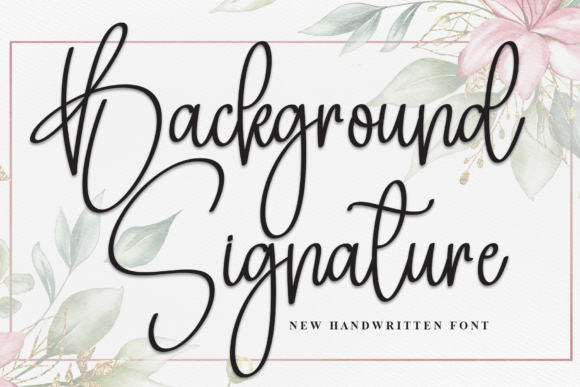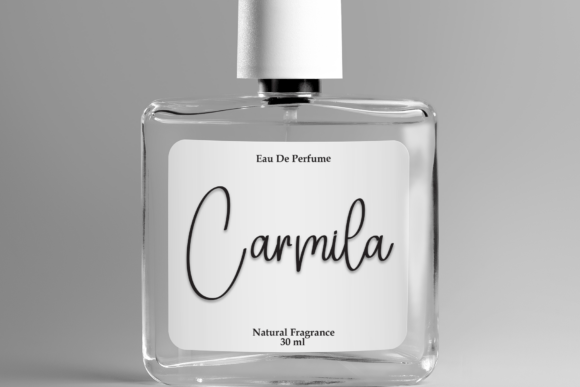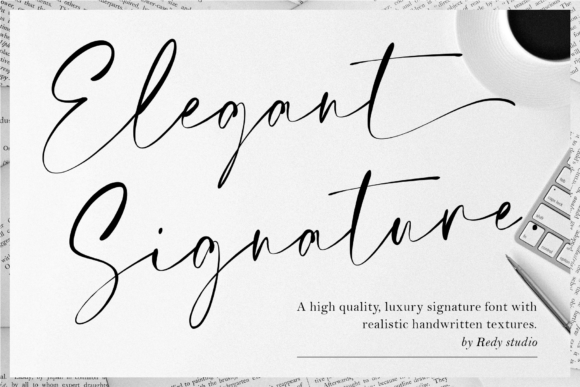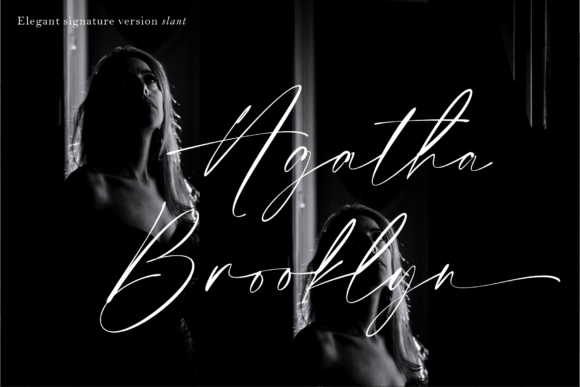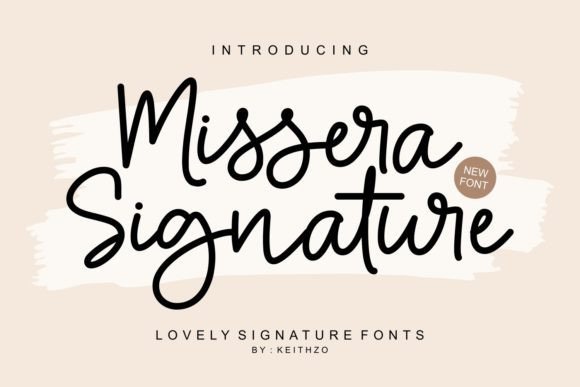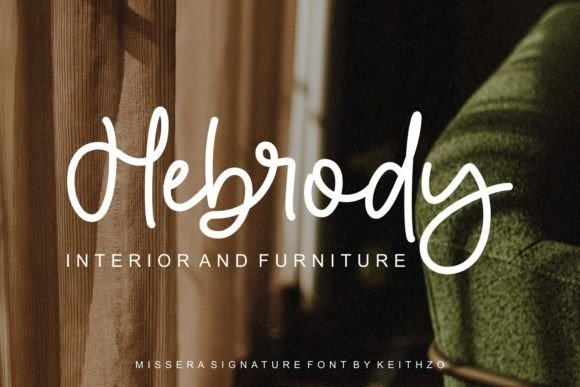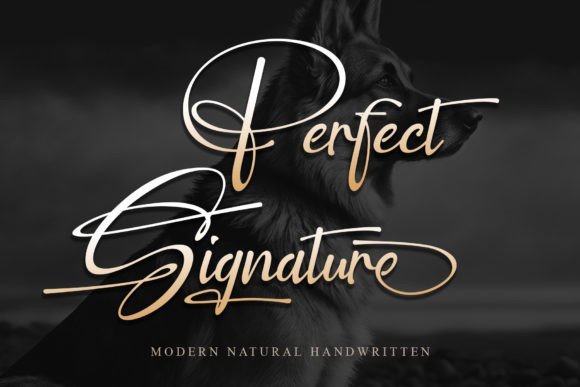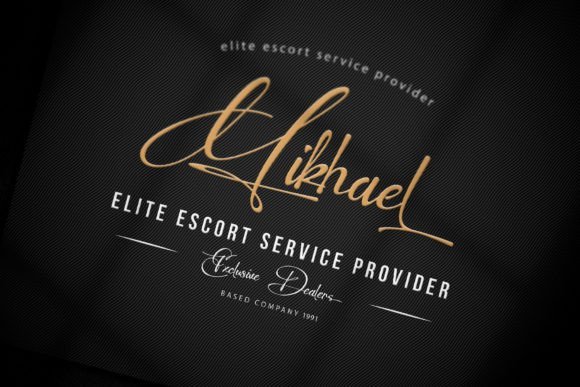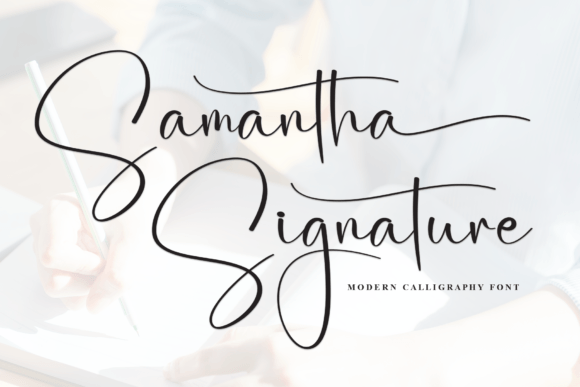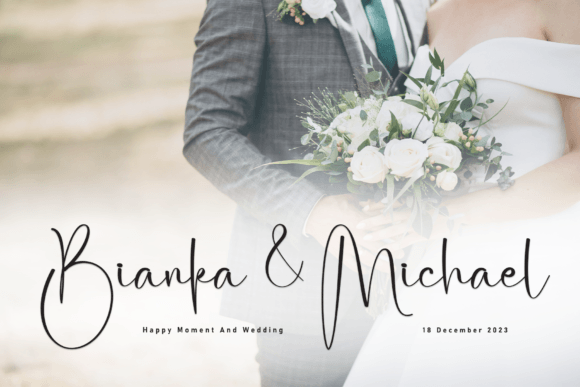
26 Elite Signature Script Fonts for Luxurious Modern Typography
Finding the perfect signature script font can completely redefine your brand’s identity. In this curated list, I explore 26 stunning options that bring an authentic handwritten feel to any project, from luxury logos to elegant wedding invites.
1. Perfect Signature: Beautifully Crafted Lines For Premium And Luxury Designs
I absolutely love how Perfect Signature mirrors the natural flow of a real pen on paper. This signature script font stands out because it doesn’t feel mechanical; the strokes have a rhythmic, sweeping motion that feels both professional and deeply personal. It’s a great pick when you want to add a sense of luxury and authenticity to a project without it looking overly formal or stiff.
I suggest using this for luxury branding, wedding invitations, upscale logos, and personalized social media graphics. The main advantage here is the impeccable balance between its fluid letterforms and legibility. It captures that elusive “hand-signed” essence perfectly, making it an ideal choice for any creative endeavor that needs a refined, high-end finishing touch.
2. Samantha Signature: The Perfect Choice For Your Romantic Wedding Stationery
Looking for a way to add a gentle, human touch to your digital work? Samantha Signature is a truly beautiful choice that captures the delicate flow of real ink on paper. I appreciate how its feminine curves and airy strokes create a sense of effortless grace. It is a fantastic signature script font for luxury wedding branding because it feels deeply personal without losing its professional edge.
I highly recommend using this style for high-end event stationery, chic greeting cards, boutique logos, and lifestyle blog headers. What really stands out to me is how the natural spacing makes every word look like it was hand-penned by a calligrapher just for you. This font brings a timeless charm that works perfectly for anyone wanting to mix modern flair with classic elegance.
3. Background Signature: Perfect Signature Script Font For Personal Branding Success
I really love how Background Signature manages to look both carefree and incredibly intentional. It has this organic, rhythmic flow that immediately makes a design feel more human and approachable. If you are searching for a signature script font for personal branding that doesn’t feel like a standard computer typeface, this is a top-tier choice because it mimics the natural pressure and speed of a real hand.
I recommend using this beautiful script for elegant invitations, modern logos, minimalist social media posts and custom stationery. Its primary strength lies in its versatility; it is simple enough to stay readable while still being stylish enough to carry a whole brand identity. It adds that perfect “final touch” to any project that needs a bit of personality without trying too hard.
4. Artistic Signature: Crafting A Luxurious Identity With Elegant Flowing Strokes
Every designer needs a tool that feels like a stroke of genius, and Artistic Signature is exactly that for me. This delicate monoline script moves across the canvas with a luxurious, high-end energy that is hard to ignore. I love how the varying stroke widths create a rhythmic, hand-drawn look, making any text feel like a piece of custom art rather than just another digital typeface.
You can beautifully apply this personalized lettering style to premium branding, wedding invitations, editorial layouts and exclusive packaging. A standout feature is the way the elegant curves connect, providing a seamless flow that mimics a professional calligrapher’s hand. It is my go-to choice for adding a layer of sophistication and class to any project that demands a unique, expensive-looking finish.
5. Prontera Signature: Why This Font Is Essential For Your Photography Business
I am absolutely captivated by how Prontera Signature feels like a swift, spontaneous stroke of a fountain pen. It has a rhythmic energy where the characters seem to dance along the baseline, creating a look that is both modern and incredibly sophisticated. I believe this signature script font for photographers is a top-tier choice because it adds a luxury spark to any visual work without feeling over-engineered or static.
I suggest applying this graceful typeface to watermarking photos, high-end branding, wedding stationery and elegant logos. It really shines in its simplicity; the delicate lines ensure that your text remains legible while still carrying that exclusive, hand-signed vibe. It’s the perfect way to breathe life and personality into a project, giving it a polished finishing touch that feels uniquely yours.
6. Bridger Signature: The Perfect Choice For Sophisticated Social Media Branding
Experience a touch of modern class with the Bridger Signature script font, a typeface that feels incredibly fresh and relaxed. I love how this font mimics natural handwriting so closely, making it an ideal luxury branding script for projects that need an authentic, human feel. It has a super-chilled vibe that keeps your designs looking stylish without appearing like they are trying too hard.
You can use this versatile font for branding, photography, social media, product design, wedding invitations, titles of articles, and book covers. A significant benefit is that it comes PUA encoded, meaning I can use all those beautiful glyphs and swashes without any technical headaches. It’s a perfect way to give your work a fashionable, high-end finish that looks completely organic.
7. Margita Signature: A Beautiful Hand Drawn Script For Modern Logos
I am truly impressed by how Margita Signature manages to look like genuine penmanship rather than a digital file. It relies on beautiful manual handwriting as its foundation, using a clever mix of thick and thin strokes to create that organic feel we all crave. When I see the stylistic alternates and ligatures in action, it really sells the illusion that someone just signed the page with a steady, graceful hand.
This versatile signature script font is a dream for logos, invitations, labels, magazines, books, greeting cards, wedding cards, packaging, fashion, make up, stationery, novels, and advertising. The beauty of it lies in how naturally the letters connect, making it feel alive and personal. It is the perfect choice for anyone wanting to inject a bit of human soul and high-end elegance into their formal or creative projects.
8. Missera Signature: Add Charming Ligatures And Glyphs To Your Modern Projects
Brightening up your design work becomes effortless with Missera Signature, a charming choice that feels both playful and harmonious. I love how its rounded, monolinear strokes give off a friendly vibe while maintaining a sense of professional balance. It is a fantastic signature script font for elegant branding because it offers a clean, handwritten look that doesn’t feel cluttered or overly traditional.
I find this style works beautifully for interior design logos, furniture catalogs, creative social media posts and modern stationery. One standout feature is the PUA encoding, which lets me play around with various ligatures and glyphs to create a truly custom feel. It’s the kind of font that adds a warm, personal touch to your projects, ensuring the final result feels authentic and thoughtfully put together.
9. Elegant Signature: Why This Distinct Script Is Perfect For Chic Branding
I am always on the lookout for a stylish autograph typeface that feels genuinely high-end, and Elegant Signature really hits the mark. It has a relaxed and stylish flow that makes any text look like it was penned by a professional calligrapher. What makes it stand out is how it manages to be incredibly distinct while remaining clean and readable, instantly elevating the mood of my creative projects.
You can use this beautiful typeface for luxury branding, wedding invitations, chic logos, and social media quotes. Since it is PUA encoded, I can use all the extra glyphs and swashes without any technical struggle. It is a fantastic tool for adding a human, organic touch to your designs, giving them a polished finish that feels both personal and expensive.
10. Jonathan Signature: Beautiful Flowing Lines For Luxury Wedding Invitations
Combining sleek aesthetics with a contemporary twist, Jonathan Signature stands out as a truly refined choice for modern design. I love how it balances fluid, cursive strokes with an elegant structure that feels both expensive and approachable. It is a fantastic stylish signature script font because the smooth, flowing lines mimic real handwriting without sacrificing the professional clarity needed for high-end projects.
I recommend using this versatile typeface for sophisticated logos, wedding invitations, premium branding materials and creative social media headers. A standout feature is its ability to transition seamlessly between formal and casual contexts. Whether I am working on a minimalist business card or a heartfelt greeting, this font brings a sense of authenticity and personal flair that makes every word feel unique.
11. Bastony Signature: Create Dramatic Artistic Flourishes For Your Brand
I am completely blown away by the raw energy of Bastony Signature. It isn’t just another tidy script; it is a powerful ink-brush masterpiece that feels alive on the screen. The way it captures the dry texture and dynamic movement of a real brush stroke gives any design a dramatic, hand-painted soul. When you need a signature script font that looks like it was signed in a moment of pure inspiration, this is the one.
You can use this expressive typeface for bespoke branding, high-end packaging, magazine titles, and elegant wedding stationery. With over 48 ligatures and swashes, it offers an incredible level of variety for creating a truly unique, artistic flourish. It effectively conveys high-quality craftsmanship and professionalism, making it a stellar choice for projects that demand a grand and unforgettable statement.
12. Le Mores Signature: Beautiful Handwritten Script Paired With A Classic Serif Duo
Adding a touch of luxury to your design work becomes effortless with Le Mores Signature, a duo that perfectly balances an elegant serif with an assertive script. I love how the two styles play off each other, creating a high-end aesthetic that feels both modern and timeless. It is a fantastic signature script font with ligatures because it offers that sought-after “bespoke” look without requiring any manual calligraphy skills.
I find it works beautifully for luxury branding, high-end logos, editorial layouts, and fashion packaging. Because it is PUA encoded, I can easily use all the stunning glyphs and alternates to make every word look unique. It is the kind of typeface that breathes life into a project, giving it a professional spark that feels deeply personal and sophisticated.
13. The Wedding Signature: Create Neatly Crafted Invitations With Romantic Style
I believe that adding The Wedding Signature to your creative toolkit is a brilliant move for anyone who appreciates fine details and professional elegance. This dazzling chic wedding font feels incredibly balanced, offering a neat and highly detailed aesthetic that looks handcrafted rather than typed. It has this unique ability to soften a design while making it feel significantly more expensive and thought-out.
I highly recommend using this versatile typeface for wedding invitations, luxury branding, romantic greeting cards, stylish logos, and refined social media layouts. Because it is so meticulously crafted, it works as a wonderful asset that enhances almost any topic you apply it to. It is the perfect choice when you need that thin, graceful line to convey a sense of intimacy and high-end quality.
14. Private Signature: The Ultimate Minimal Signature Script Font For Creative Projects
Casual and flowing lines define the character of Private Signature, a choice that instantly brings a relaxed, human touch to any digital canvas. I am particularly drawn to its unique and versatile style, which avoids looking overly stiff while maintaining a professional edge. It is an excellent example of a minimal signature script font that doesn’t try too hard, relying on smooth transitions and a natural rhythm to catch the eye.
I highly recommend applying this typeface to wedding invitations, stationary art, social media posts, and personal branding. The beauty of this script is how easily it adapts to different moods; it can feel incredibly intimate or modern and chic depending on the layout. It serves as a fantastic tool for anyone wanting to create something gorgeous and memorable with a genuine handwritten feel.
15. Brittany Signature: Why This Elegant Script Is Perfect For Modern Advertising
I am constantly drawn to Brittany Signature because it strikes that elusive balance between high-fashion sophistication and a relaxed, inky flow. The unique curves of this signature script font feel incredibly natural, as if they were sketched in a moment of creative clarity rather than generated by a computer. It brings a refined, upscale energy to any canvas, making it a standout choice for designers who want their work to feel both exclusive and deeply personal.
I highly recommend using this graceful typeface for branding projects, logos, wedding designs, social media posts, advertisements, and product packaging. It provides an authentic handwritten feel that instantly elevates the perceived value of your brand. Whether you are crafting a luxury invitation or a chic logo, this font ensures your message is delivered with a touch of timeless elegance and professional polish.
16. Girly Signature: The Perfect Monoline Signature Script Font For Modern Projects
Blending a contemporary atmosphere with a nod to timeless calligraphy, Girly Signature brings a fresh, chic energy to the digital page. I love how its impeccable form remains balanced yet varied, ensuring that every word feels like it was written in a single, confident stroke. As a monoline signature script font, it offers a consistent line weight that feels modern and incredibly clean, making it a dream for anyone who wants to enhance the visual beauty of their creative work.
I recommend using this stylish typeface for boutique branding, personalized greeting cards, modern logo designs and elegant social media imagery. One of the best parts about working with this font is the PUA encoding, which lets me use all the beautiful glyphs and ligatures without any hassle. It really adds that extra layer of sophistication and personality that makes a project stand out from the crowd.
17. Bestina Signature: Add A Sophisticated Personal Touch To Your Brand Identity
I really appreciate the airy and graceful energy that Bestina Signature brings to the screen. It is a delicate handwriting typeface that manages to feel both exclusive and approachable at the same time. This signature script font stands out because of its exceptionally fine lines, which create a sophisticated atmosphere that looks like it was penned by someone with a very steady and artistic hand.
I suggest using this beautiful script for logos, wedding invitations, marketing materials, and lifestyle branding projects. One of the most helpful features is that it is PUA encoded, so you can use all those amazing glyphs and ligatures without any technical stress. It is a fantastic tool for anyone wanting to add a personal, high-end flourish to their work while keeping the overall aesthetic light and elegant.
18. Book Signature: Sophisticated Script Aesthetics For Modern Creative Work
Capturing the essence of a hand-penned letter, Book Signature offers a level of delicacy that is hard to find in standard typefaces. I love how its well-balanced characters flow seamlessly across the page, creating an aesthetic that feels both intimate and professional. It is an ideal signature script font for branding because it doesn’t just display text; it adds a layer of grace and authenticity to every word you write.
I suggest using this elegant script for boutique logos, personalized stationery, editorial headings, and luxury invitations. One of the most inviting things about this font is how it matches such a wide pool of designs without feeling out of place. It provides a polished, refined finish that helps your brand voice feel truly unique and thoughtfully crafted.
19. American Signature: Add A Personal Touch To Your Stylish Invitations
I love how American Signature strikes that perfect balance between classic penmanship and modern style. It flows across the screen with a confidence that mimics real ink on high-quality paper, making every word feel intentional and polished. This signature script font stands out because its letterforms are remarkably smooth, offering a sophisticated look that is neither too busy nor too simple for a professional project.
I suggest using this elegant cursive for invitations, greeting cards, bespoke logos, and lifestyle branding. It provides a natural, human touch that instantly makes a design feel more exclusive and high-end. Whether you are working on a personal piece or a corporate identity, it delivers a fancy, rhythmic aesthetic that ensures your message leaves a truly memorable impression on your audience.
20. Three Signature: A Playful Modern Script For Your Creative Projects
Bringing a refreshing and playful energy to the world of typography, Three Signature is a modern handwritten gem that feels incredibly lighthearted. I love how its bouncy characters and smooth loops create a sense of movement that instantly catches the eye. It is a fantastic choice if you are searching for an elegant signature script font that maintains a casual, friendly vibe without sacrificing a professional, polished finish.
You can confidently apply this versatile typeface to DIY craft projects, personalized branding, playful logo designs and creative social media graphics. One thing that really stands out to me is that it is PUA encoded, so I can use all the extra glyphs and swashes effortlessly. It is a wonderful asset for anyone looking to add a unique, handmade touch to their visual storytelling and creative endeavors.
21. Writing Signature: The Perfect Signature Script Font For Your Lovely Projects
I am absolutely charmed by the dainty and stylish essence of Writing Signature. It carries a graceful, light-as-air feel that instantly gives any text a sense of refined beauty. When I look at its flowing letterforms, it feels like a genuine piece of calligraphy that adds a delicate, human touch to a digital canvas. This signature script font is a fantastic choice if you want to elevate a design with something that feels both intimate and high-end.
I suggest using this elegant typeface for logos, branding, labels, photography, watermarks, special events, and personal stationery. Since it is PUA encoded, I can use all the lovely glyphs and swashes without any technical struggle. It is a wonderful asset for anyone looking to achieve a professional yet deeply personal look, ensuring that every project reflects a sense of unique craftsmanship and style.
22. Anderson Signature: A Modern And Playful Script For Your Creative Brand
Injecting a sense of modern energy into any design, Anderson Signature stands out with its playful yet professional handwritten rhythm. I really enjoy how the letterforms bounce naturally, giving off a friendly vibe that feels far more personal than a standard digital typeface. It is a fantastic choice if you are looking for a handwritten signature script font that balances clean lines with a creative, free-spirited aesthetic.
You can confidently use this script for branding projects, logo design, personalized greeting cards, product packaging and creative social media posts. A significant plus is that it comes PUA encoded, so I can utilize all the extra glyphs and swashes without needing specialized software. It truly is a versatile tool for any designer or crafter who wants their work to look effortless, stylish, and full of life.
23. Double Signature: A Modern And Playful Script For Creative Designers
I love the youthful and energetic rhythm that Double Signature brings to the table. It is a modern, playful script that feels remarkably alive, as if the ink is still drying on the page. The letterforms have a wonderful bounce to them, making this signature script font a standout choice for anyone who wants to avoid the stiffness of traditional calligraphy while maintaining a sleek, professional look that catches the eye instantly.
You can use this versatile typeface for crafter projects, logo designs, branding materials, social media graphics and personalized stationery. Because it is PUA encoded, it is incredibly simple to use every unique glyph and swash to customize your text. It really is a fantastic tool for designers who want to inject a bit of joy and authentic personality into their visual storytelling without any technical fuss.
24. Gasthony Signature: The Perfect Signature Script Font For Fashion Branding
Evoking a sense of effortless grace, Gasthony Signature is the kind of typeface that instantly refines any layout it touches. I am particularly impressed by its clean, thin, and smooth vibe, which feels incredibly high-end without being overly ornamental. It is an exceptional signature script font for fashion branding because the lines are so light and airy, mimicking the quick yet precise stroke of a luxury designer’s pen.
I highly recommend this font for chic logos, editorial layouts, high-end product packaging, elegant invitations, and premium social media content. Since it is PUA encoded, I can use all the beautiful glyphs and swashes to create a truly bespoke look. It’s a wonderful asset that brings a sophisticated, personalized feel to your work, ensuring your designs stand out with a polished and stylish finish.
25. Opera Signature: Enhance Your Creative Projects With This Sophisticated Typography Duo
I am genuinely impressed by the commanding presence of Opera Signature, a duo that masterfully pairs a refined serif with an organic handwritten script. It feels like a complete design kit in a single file, allowing me to switch between authoritative structures and personal, flowing strokes effortlessly. This signature script font has a certain weight to it that makes any layout look grounded and expensive, rather than just another light-weight calligraphy style.
I suggest using this powerful duo for editorial layouts, formal invitations, corporate branding, magazine covers, and luxury packaging. Since it is PUA encoded, you can use every detailed glyph and swash without any technical hurdles. It is a wonderful asset for anyone who wants their projects to feel curated and sophisticated, providing a high-contrast look that catches the eye while maintaining a timeless, professional aesthetic.
26. Handwriting Signature: Achieve An Authentic Human Touch In Your Visual Content
Bringing a truly timeless and lovely feel to any creative canvas, Handwriting Signature captures the essence of natural penmanship with remarkable grace. I love how every letter carries its own unique touch, ensuring that your text doesn’t look like a repetitive digital imitation but rather a living piece of art. It is a fantastic signature script font for those who need their designs to breathe and feel authentically human.
You should consider this versatile typeface for eye-catching logos, branding identity, inspirational quotes, and personalized stationery. I’ve noticed that it has a special way of making a design come alive, adding a layer of warmth and sophistication that is hard to replicate. It is a reliable choice for any project where you want to leave a memorable, handwritten impression on your audience.
Final Thoughts
Choosing the right signature script font is the first step toward creating a lasting impression. I hope this collection of 26 fonts inspires you to elevate your creative projects and bring a touch of personalized luxury to your brand.